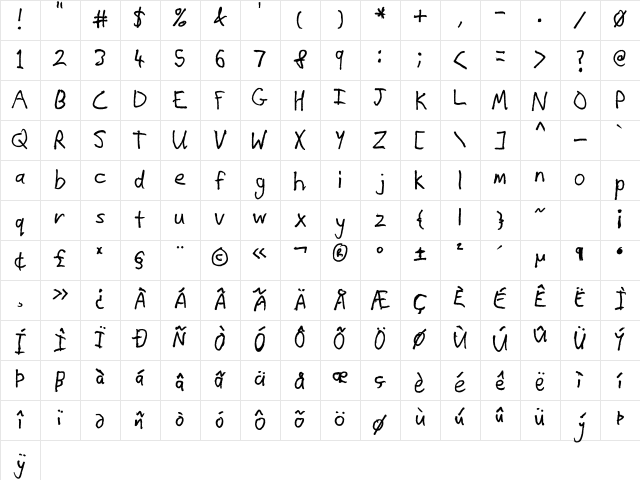
ChrisMcCormickTwentyEleven Regular
Design Context for ChrisMcCormickTwentyEleven Typeface
ChrisMcCormickTwentyEleven is a composed and adaptable typeface that performs quietly and consistently across a wide range of design contexts.